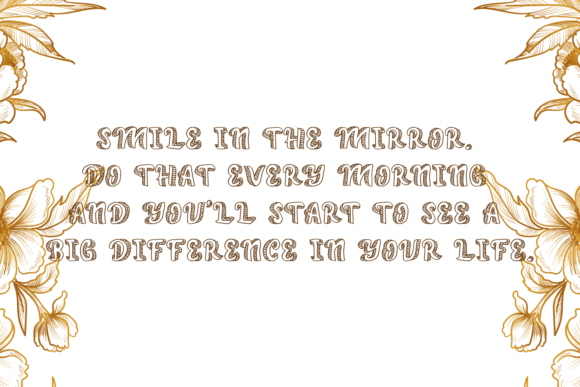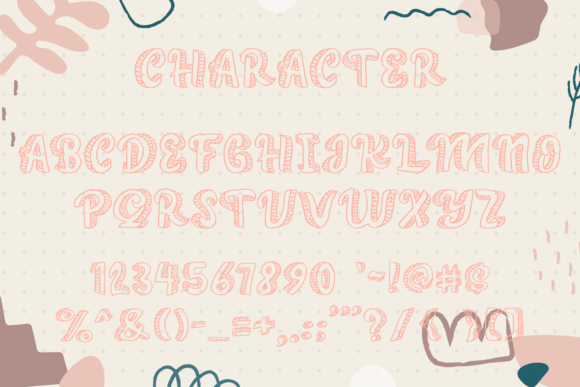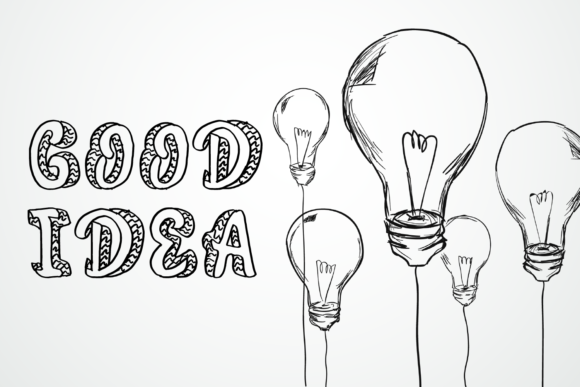
Introduction to Georgia Line Font
Georgia Line is a fun, friendly and sweet outlined display font.
This original look will appeal to a wide range of crafty ideas, from letterheads and titles, to stationery Georgia Line is perfect for children themed designs, especially when combined with bright colors.
Key Features of Georgia Line Font
Why Choose Georgia Line Font?